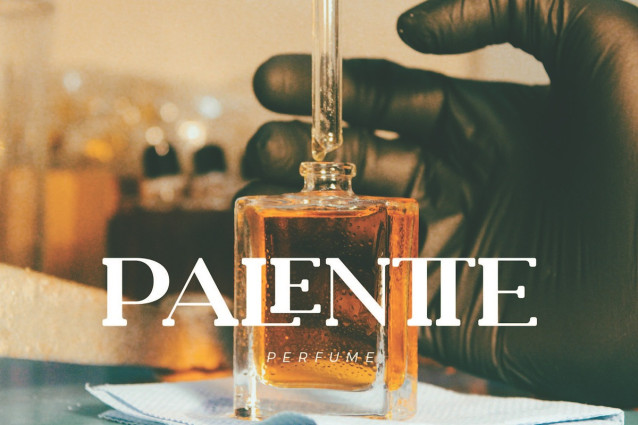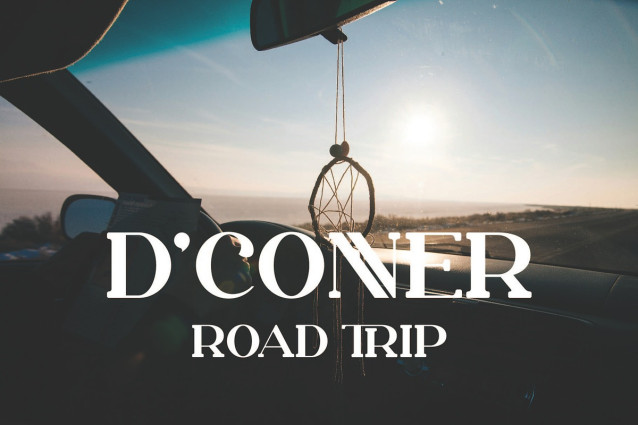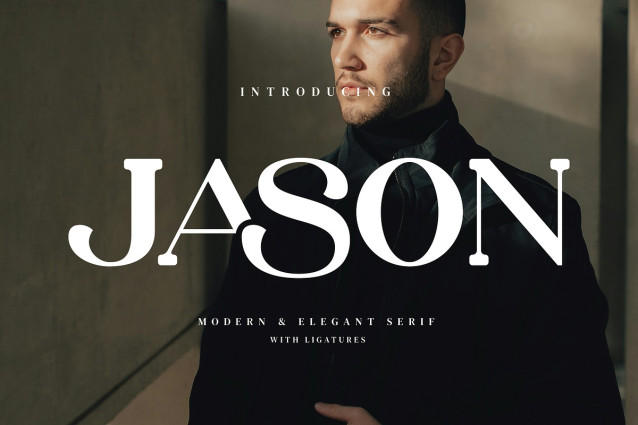
Jason Font
Jason Font inspired by the famous minimalist logo perfect for the purposes of designing templates, brochures, videos, advertising branding, logos and more.